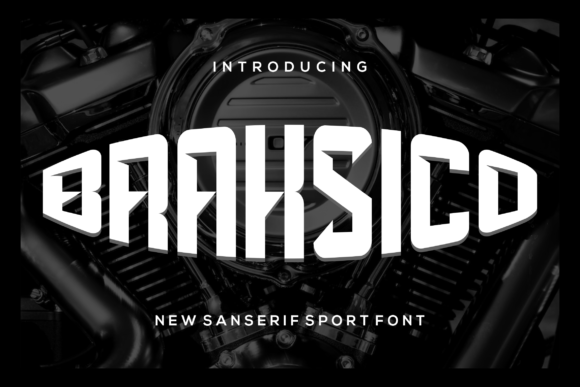
The Ultimate Guide to Braksico Font: A Bold and Authentic Sans-Serif for Your Design Projects
I’ll never forget the time I was working on a logo design project for a new esports team. I had a clear vision of what I wanted to create, but I just couldn’t find the right font to bring it all together. The client wanted something bold, modern, and authentic, but everything I tried seemed to fall flat. That’s when I stumbled upon Braksico Font, and it was like a lightbulb went off in my head. In this article, I’ll share my experience with Braksico Font, its features, and how to make the most of it in your design projects.
An Honest Review of Braksico Font
So, what makes Braksico Font so special? Here are some things I love about it:
- ✨ Bold and authentic: Braksico Font has a confident and modern feel to it, making it perfect for logos, t-shirt printing, and other bold design projects.
- ✅ Versatile: This font is suitable for a wide range of contexts, from esports to fashion, and even editorial design.
- 💡 Easy to read: Despite its bold nature, Braksico Font is surprisingly easy to read, even at smaller sizes.
Of course, no font is perfect, and Braksico Font has a few small quirks:
- 🤔 Limited ligatures: Braksico Font doesn’t have a wide range of ligatures, which might be a drawback for some designers.
- ⚠️ Not ideal for body text: While Braksico Font is easy to read, it’s still a bold font, and using it for long blocks of body text might not be the best choice.
- Experiment with OpenType features like Stylistic Alternates to add some extra flair to your design.
The Story Behind Braksico Font
While I couldn’t find any information on the exact origins of Braksico Font, I like to imagine that it was created by a young designer who wanted to craft a font that would make a bold statement in the design world. Perhaps they were inspired by the urban landscape, the world of esports, or the latest fashion trends. Whatever the inspiration, Braksico Font is a testament to the power of typography to evoke emotions and convey personality.
| Font Name | Braksico Font |
| Author | kalingga.albert |
| What is Braksico Font best used for? | Braksico Font is perfect for bold design projects like logos, t-shirt printing, esports, and more. |
| Is Braksico Font easy to read? | Yes, despite its bold nature, Braksico Font is surprisingly easy to read, even at smaller sizes. |
| Can I use Braksico Font for body text? | While Braksico Font is easy to read, it’s still a bold font, and using it for long blocks of body text might not be the best choice. |
| Is Braksico Font suitable for editorial design? | Yes, Braksico Font can be used for editorial design projects, especially for headlines and titles. |